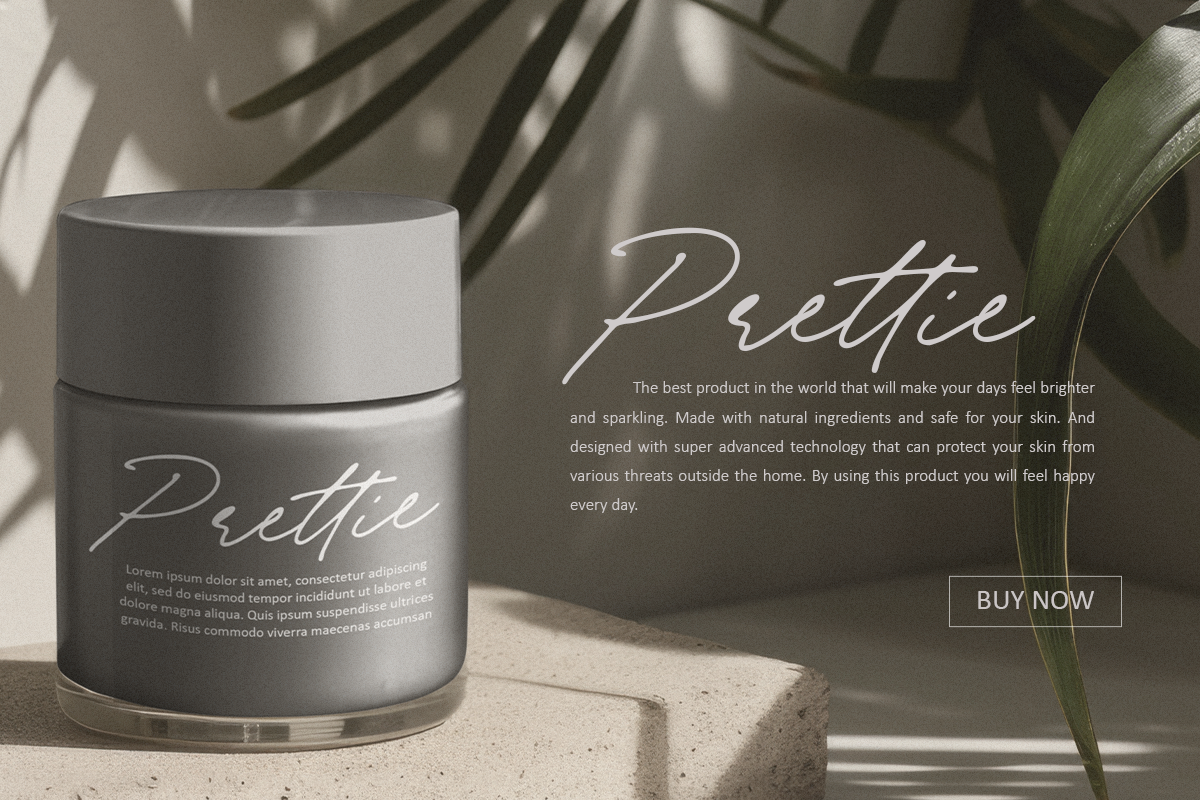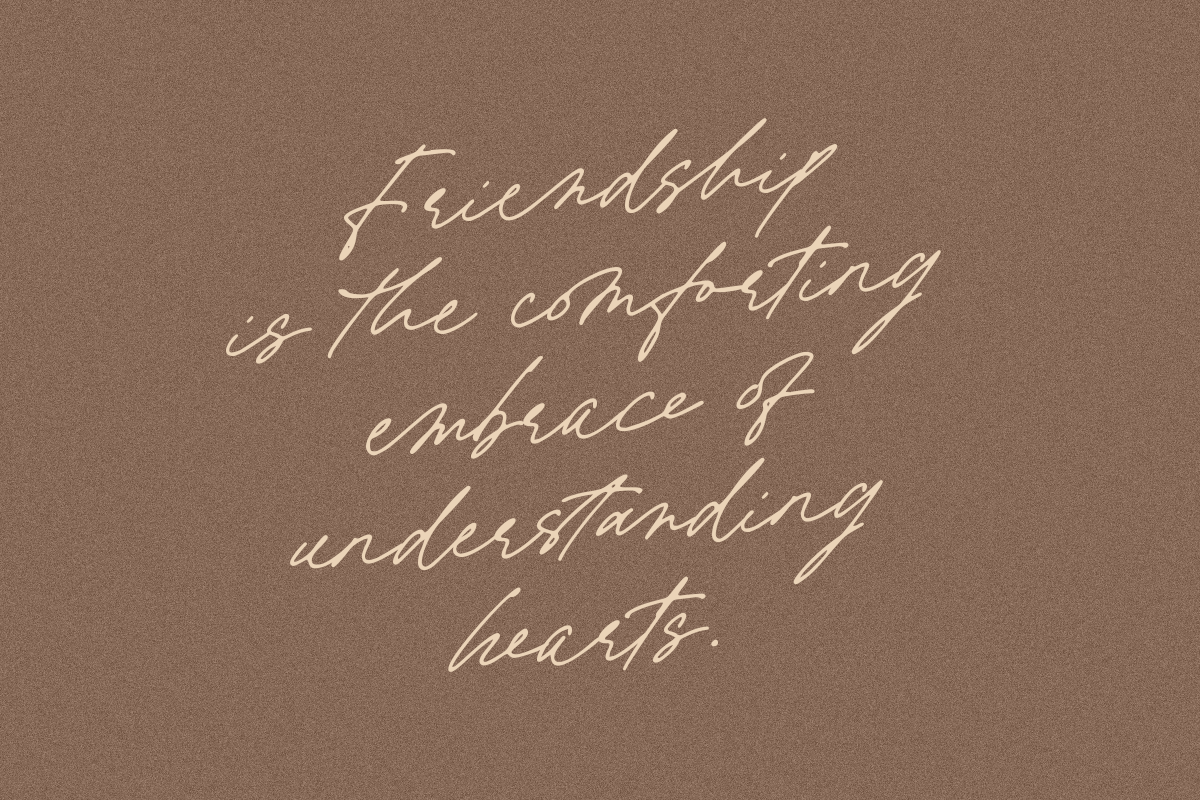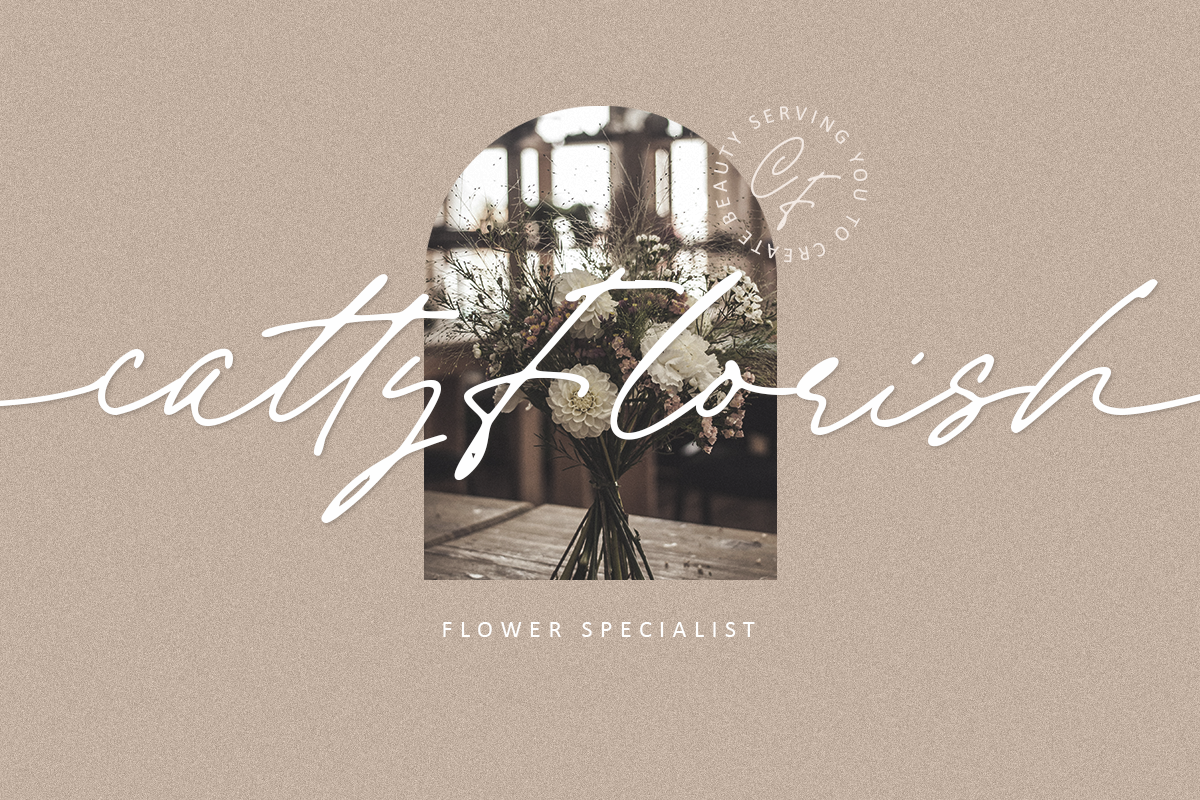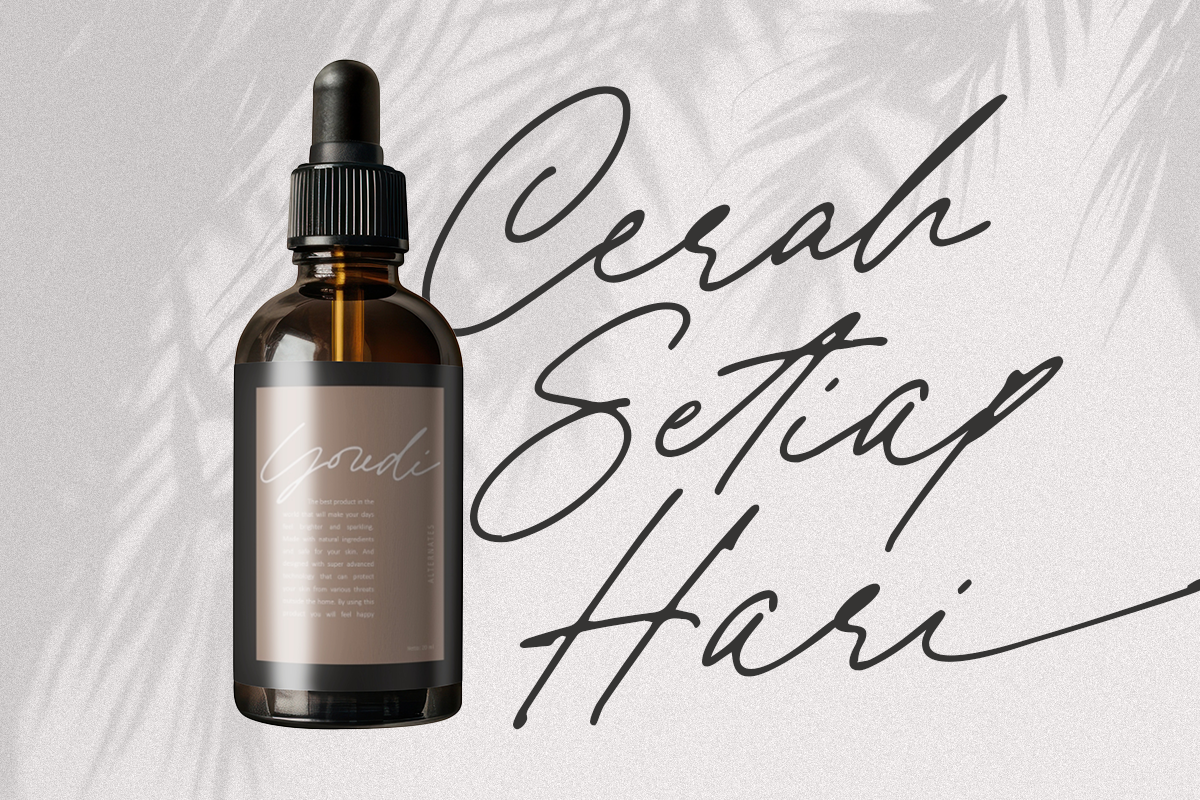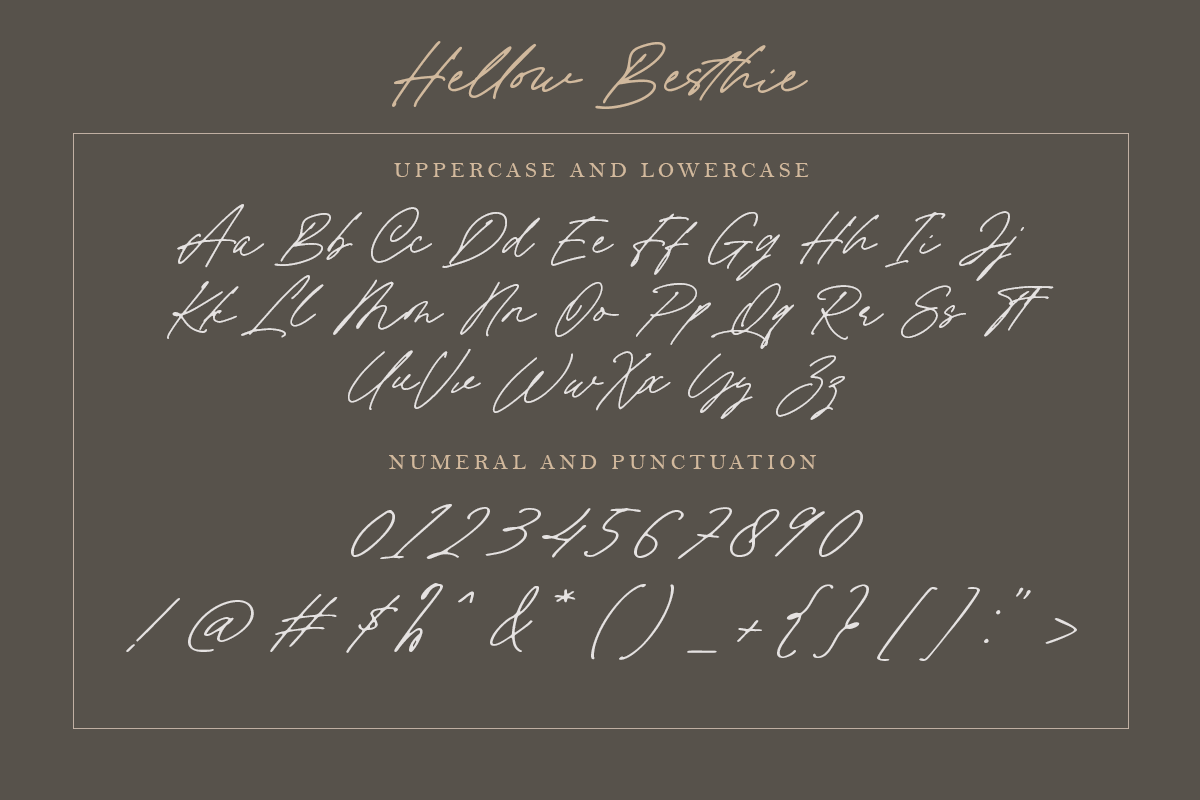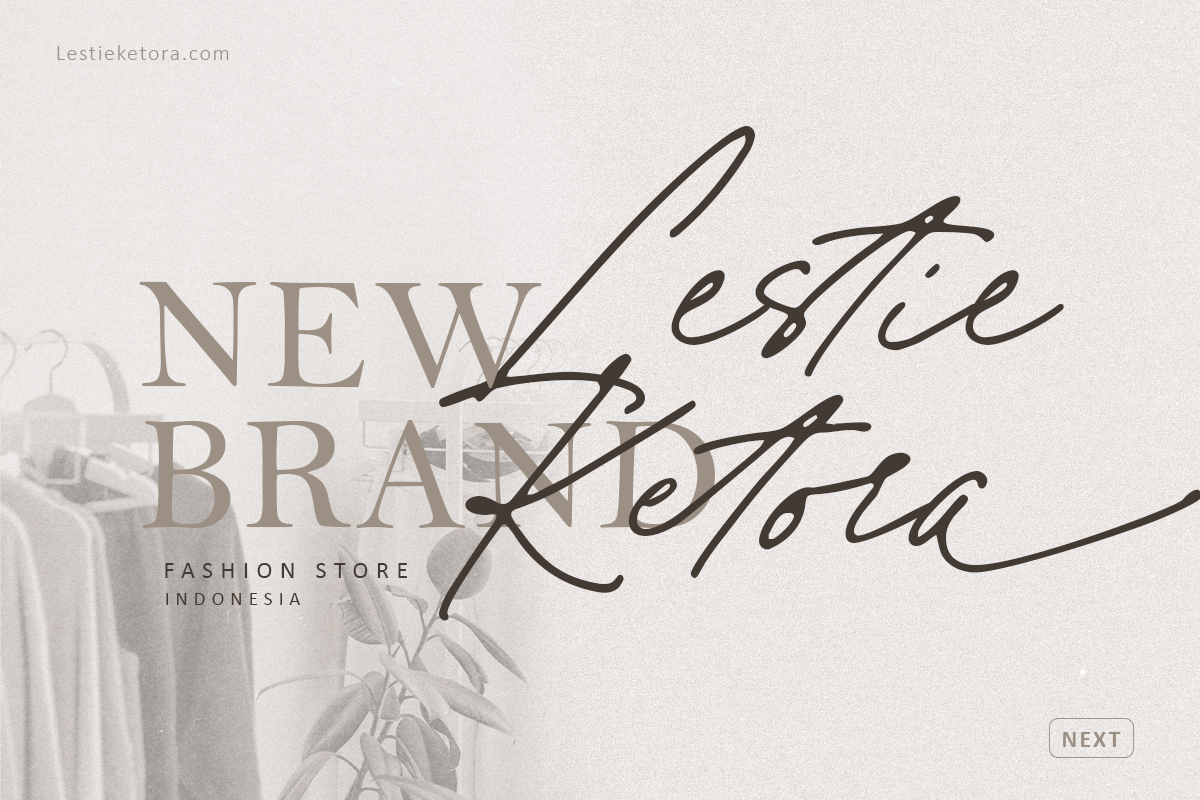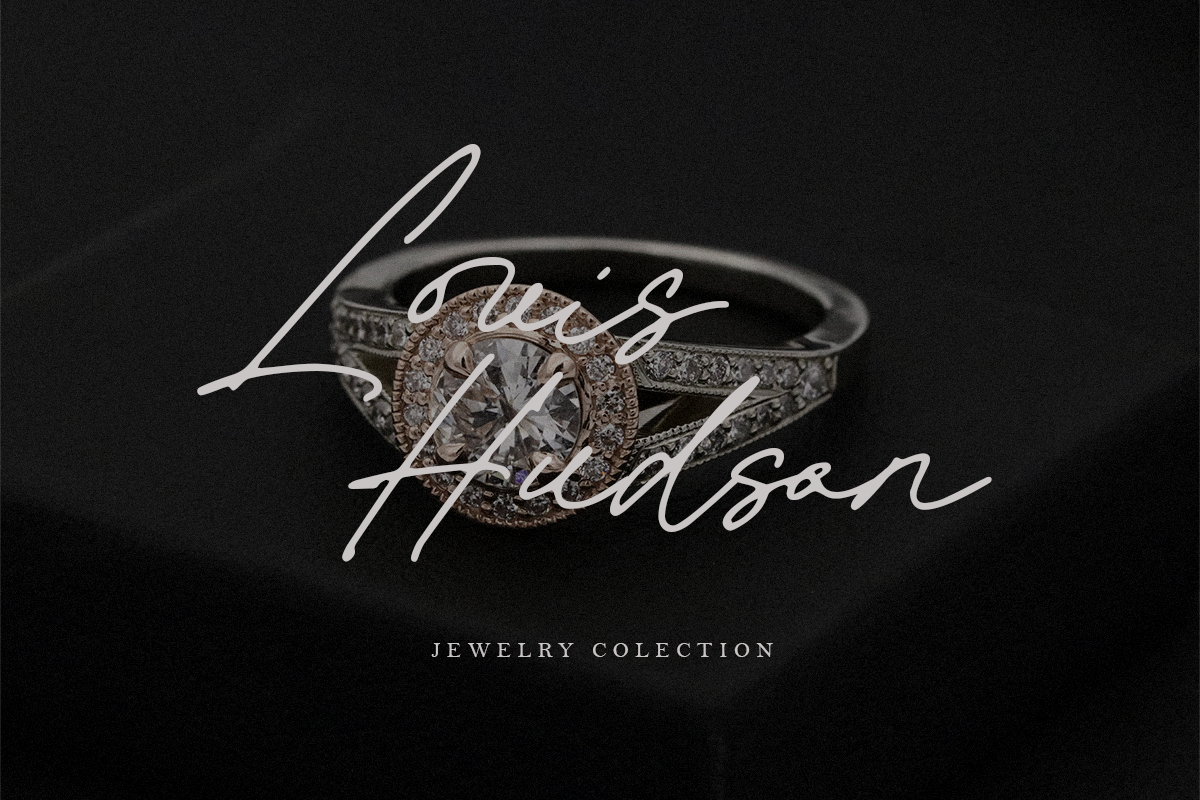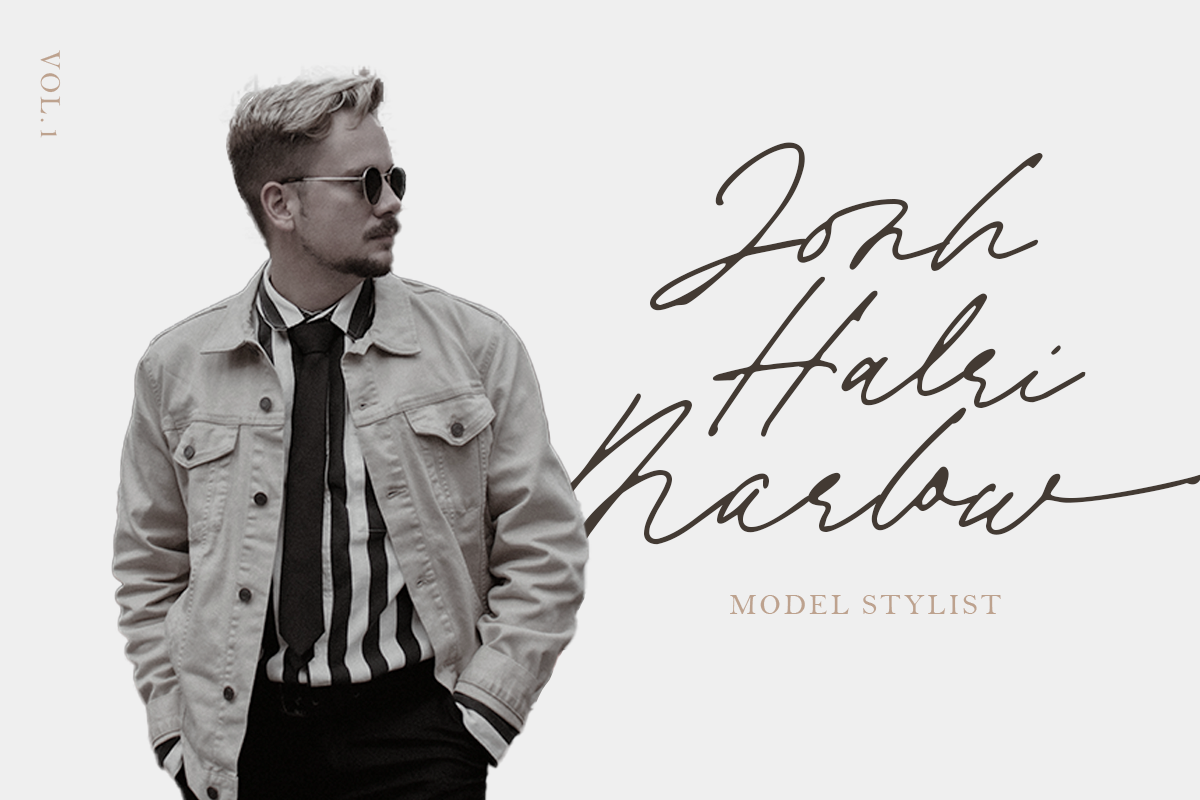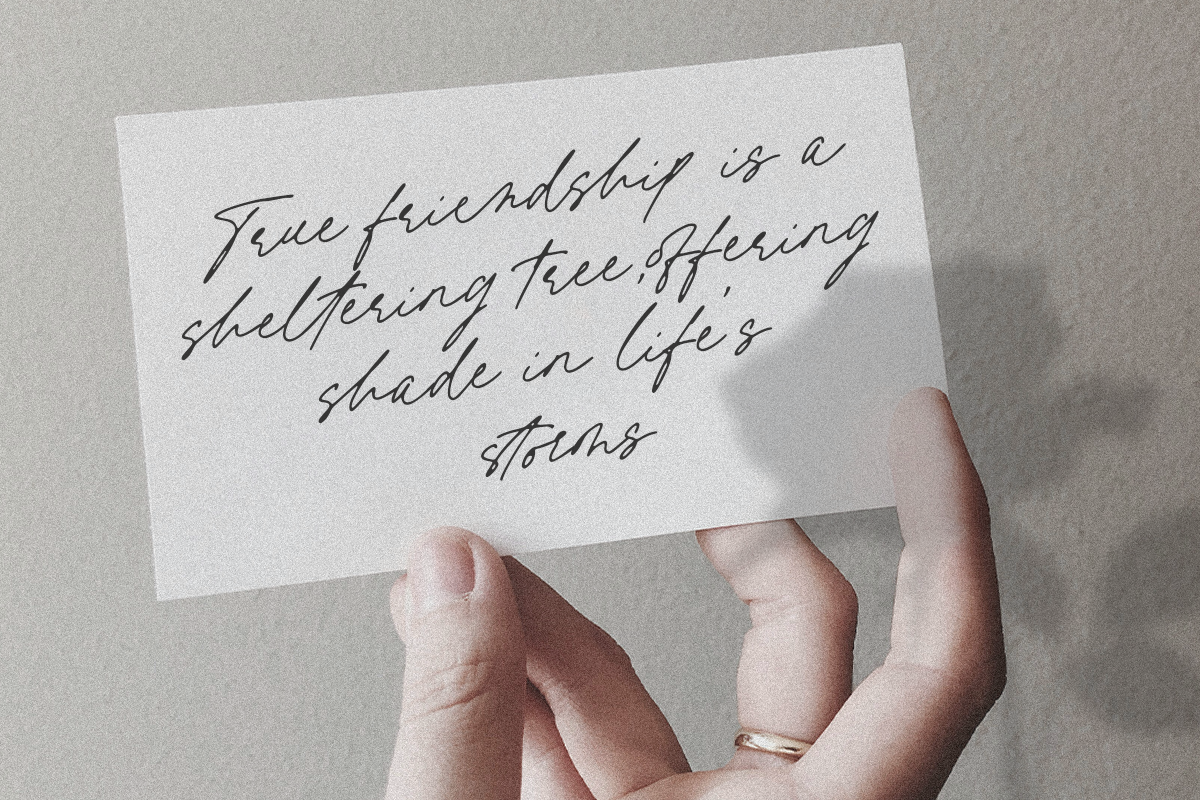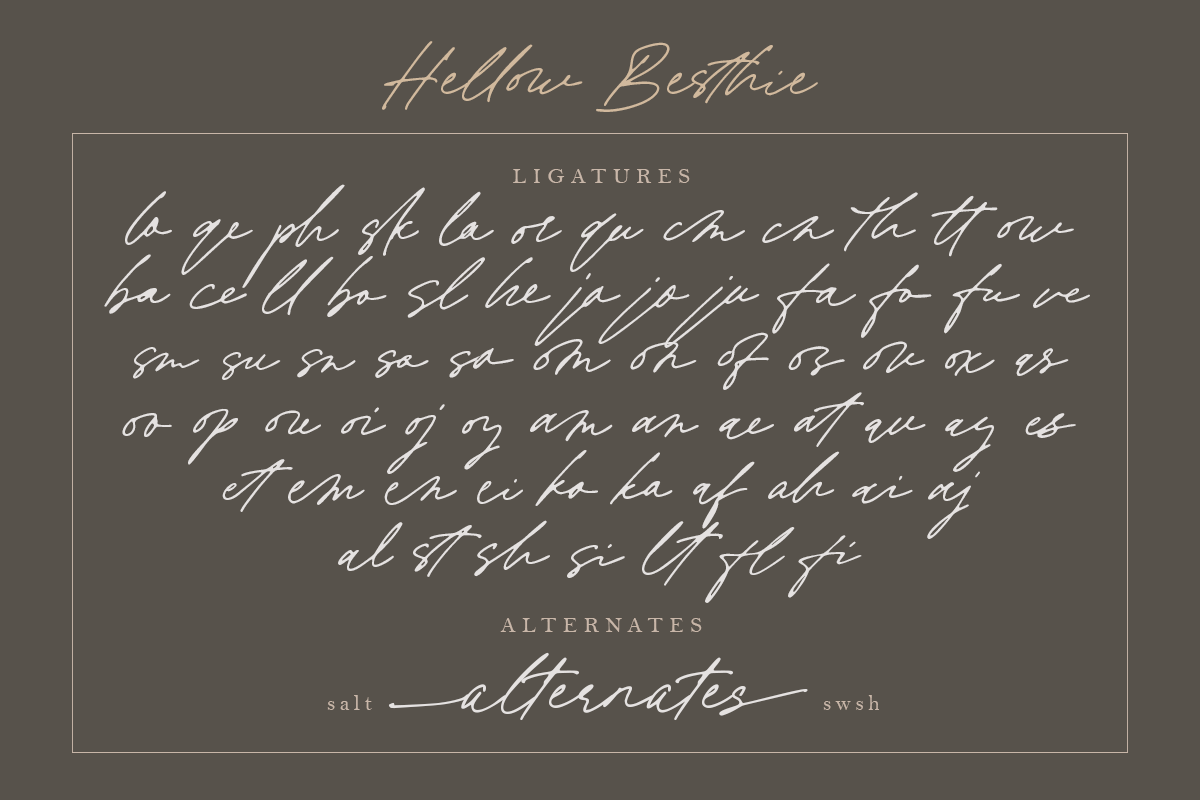
Hellow Besthie
Hellow Besthie is a dynamic style script font with more than 60 ligatures that can be used to beautify your designs. The ligatures available are the most frequently used letter combinations so it is very easy and really helps you.
Apart from that, there are alternates in each lowercase to add a unique and attractive impression to make it look more natural.
This font is suitable for wedding invitations, fashion, cosmetics, and various designs with elegant and feminine themes.